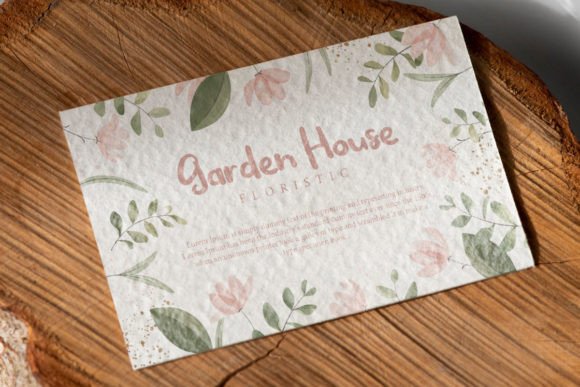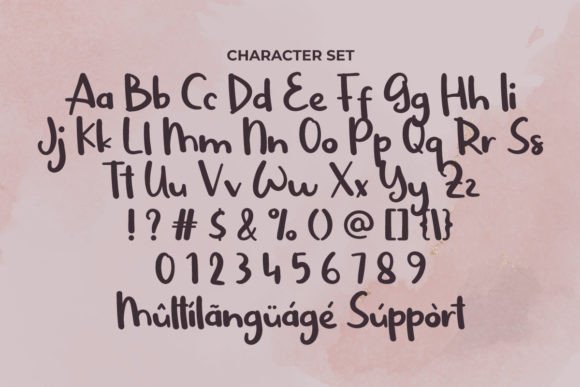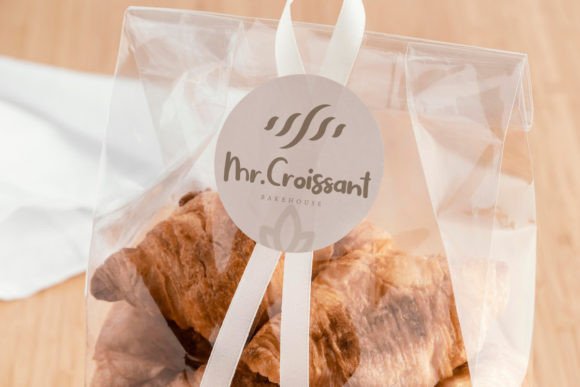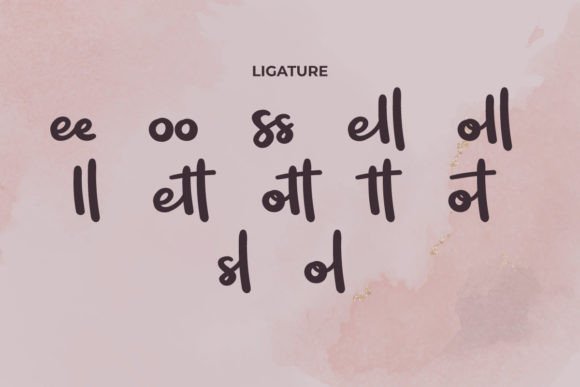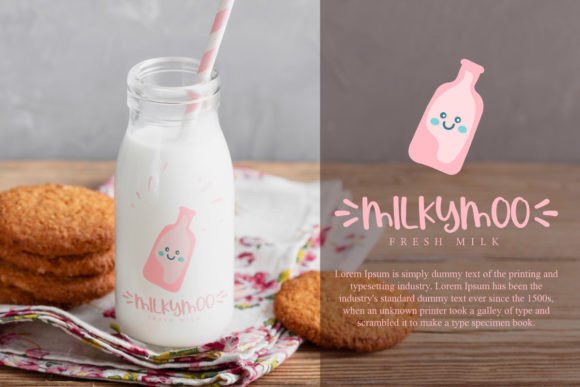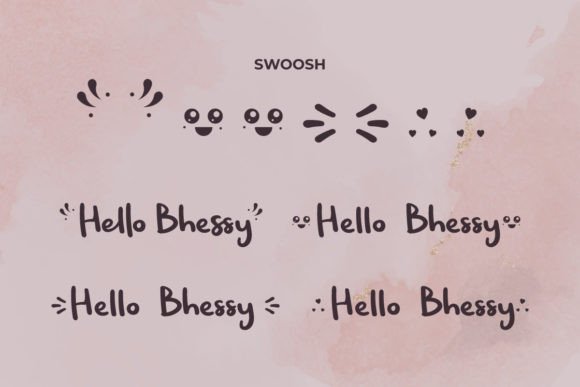
Hello Bhessy Font: The Perfect Addition to Your Design Arsenal
Hello Bhessy is a fun and friendly handwritten display font that has taken the design world by storm. Its playful and cute characters are perfect for creating lovely designs such as onesies, kids’ apparel, birthday invitations, or anything you can think of! In this article, we’ll dive into the wonderful world of Hello Bhessy Font and explore its features, benefits, and uses.
What is Hello Bhessy Font?
Hello Bhessy Font is a modern, handwritten display font designed to add a touch of playfulness and whimsy to your designs. Its unique and quirky characters make it perfect for creating eye-catching and engaging designs that appeal to a wide range of audiences. Whether you’re a designer, crafter, or DIY enthusiast, Hello Bhessy Font is an excellent addition to your design arsenal.
Key Features of Hello Bhessy Font
• Playful and Cute Characters: Hello Bhessy Font features playful and cute characters that are sure to bring a smile to your face. Its unique and quirky design makes it perfect for creating fun and engaging designs.
• Handwritten Display Font: Hello Bhessy Font is a handwritten display font that mimics the look and feel of handwritten text. Its natural and fluid design makes it perfect for creating designs that look like they were written with love.
• Versatile: Hello Bhessy Font is a versatile font that can be used for a wide range of design projects, from onesies and kids’ apparel to birthday invitations and more.
• Easy to Read: Despite its playful design, Hello Bhessy Font is easy to read and understand, making it perfect for designs that require a clear and concise message.
Benefits of Using Hello Bhessy Font
So, why should you use Hello Bhessy Font in your designs? Here are just a few benefits of using this amazing font:
• Adds a Touch of Whimsy: Hello Bhessy Font adds a touch of whimsy and playfulness to your designs, making them stand out from the crowd.
• Perfect for Kids’ Designs: Hello Bhessy Font is perfect for designing kids’ apparel, onesies, and other products that require a fun and playful design.
• Increases Engagement: The playful and cute characters of Hello Bhessy Font are sure to grab the attention of your audience and increase engagement.
• Easy to Pair: Hello Bhessy Font is easy to pair with other fonts, making it perfect for creating designs that require a combination of fonts.
Uses of Hello Bhessy Font
Hello Bhessy Font is a versatile font that can be used for a wide range of design projects, including:
• Onesies and Kids’ Apparel: Hello Bhessy Font is perfect for designing onesies, kids’ apparel, and other products that require a fun and playful design.
• Birthday Invitations: Create beautiful and eye-catching birthday invitations with Hello Bhessy Font.
• Party Decorations: Use Hello Bhessy Font to create party decorations, such as banners, garlands, and more.
• Social Media Graphics: Hello Bhessy Font is perfect for creating social media graphics, such as Facebook posts, Instagram stories, and more.
Tips for Using Hello Bhessy Font
Here are a few tips for using Hello Bhessy Font in your designs:
• Use it for Headings: Hello Bhessy Font is perfect for headings and titles, where its playful and cute characters can shine.
• Pair it with Other Fonts: Experiment with pairing Hello Bhessy Font with other fonts to create unique and interesting designs.
• Use it for Kids’ Designs: Hello Bhessy Font is perfect for designing kids’ products, such as onesies, kids’ apparel, and more.
• Experiment with Colors: Don’t be afraid to experiment with different colors and color combinations to make your designs pop.
Hello Bhessy Font is a fun and friendly handwritten display font that’s perfect for creating lovely designs. Its playful and cute characters make it perfect for designing onesies, kids’ apparel, birthday invitations, and more. With its versatility, ease of use, and range of benefits, Hello Bhessy Font is an excellent addition to any design arsenal. So why not give it a try and see what amazing designs you can create?